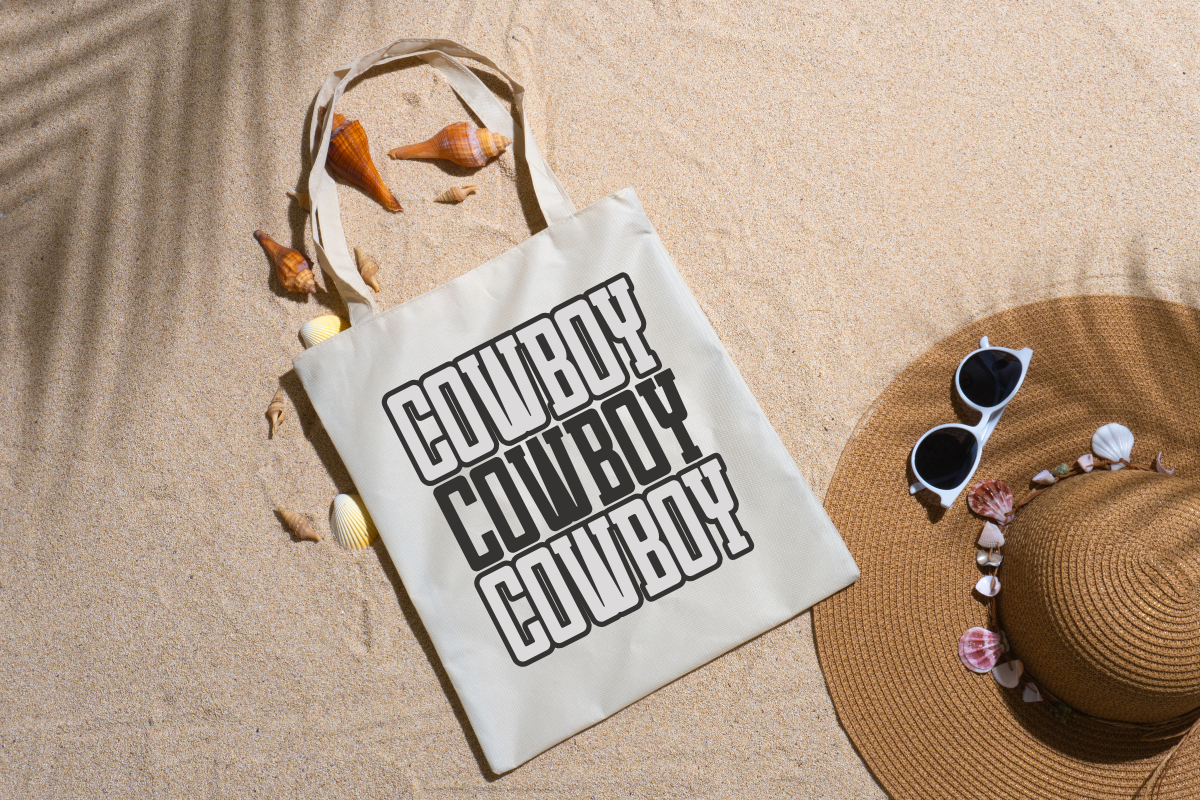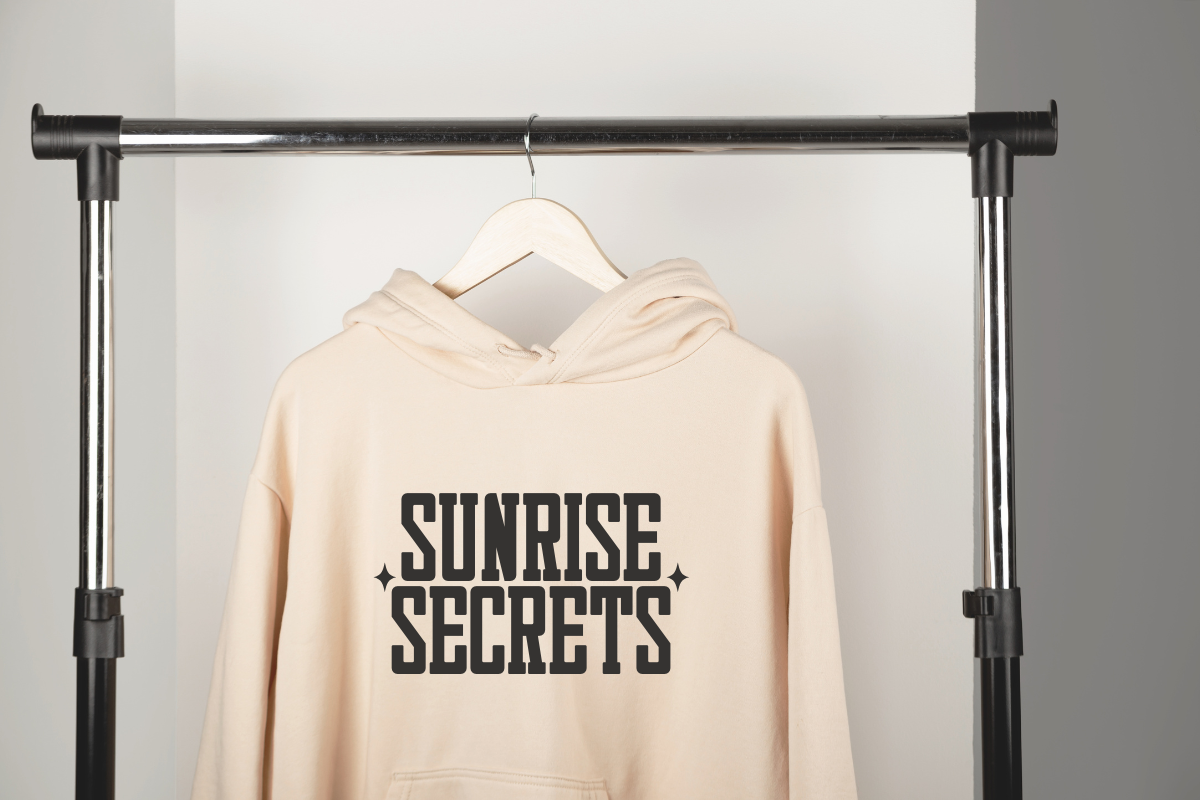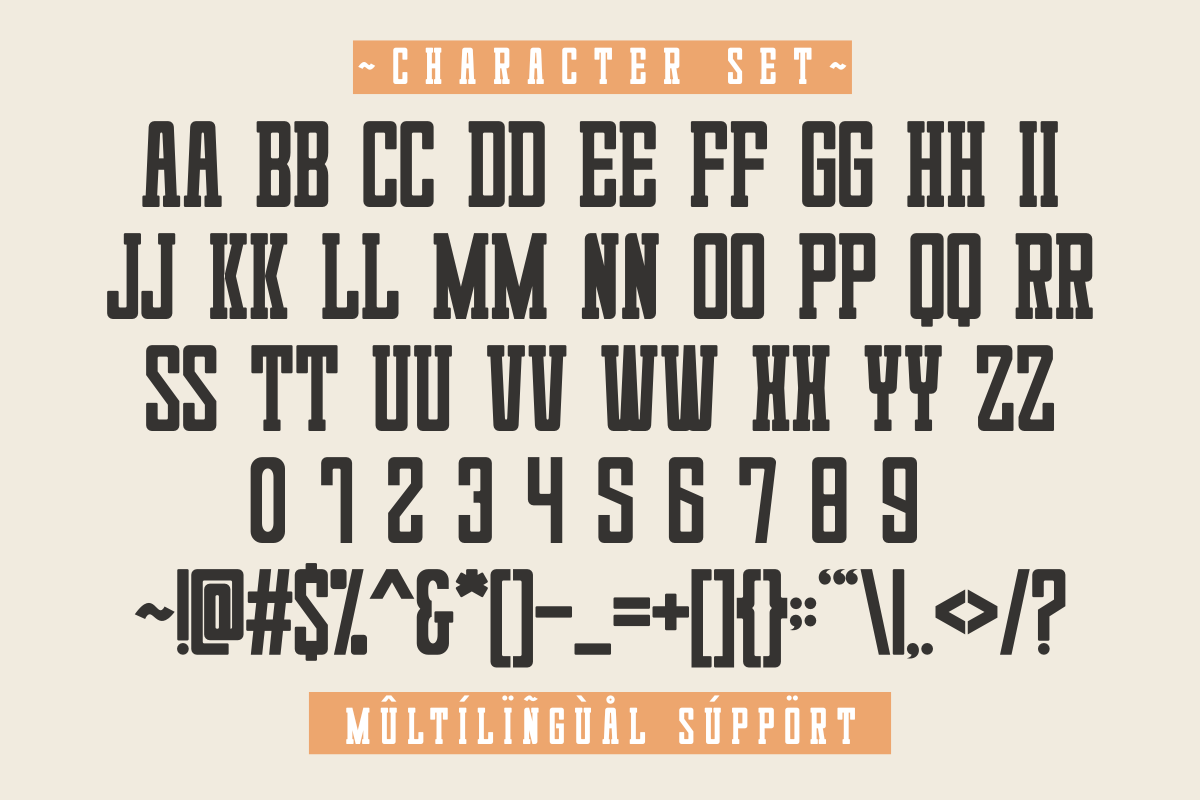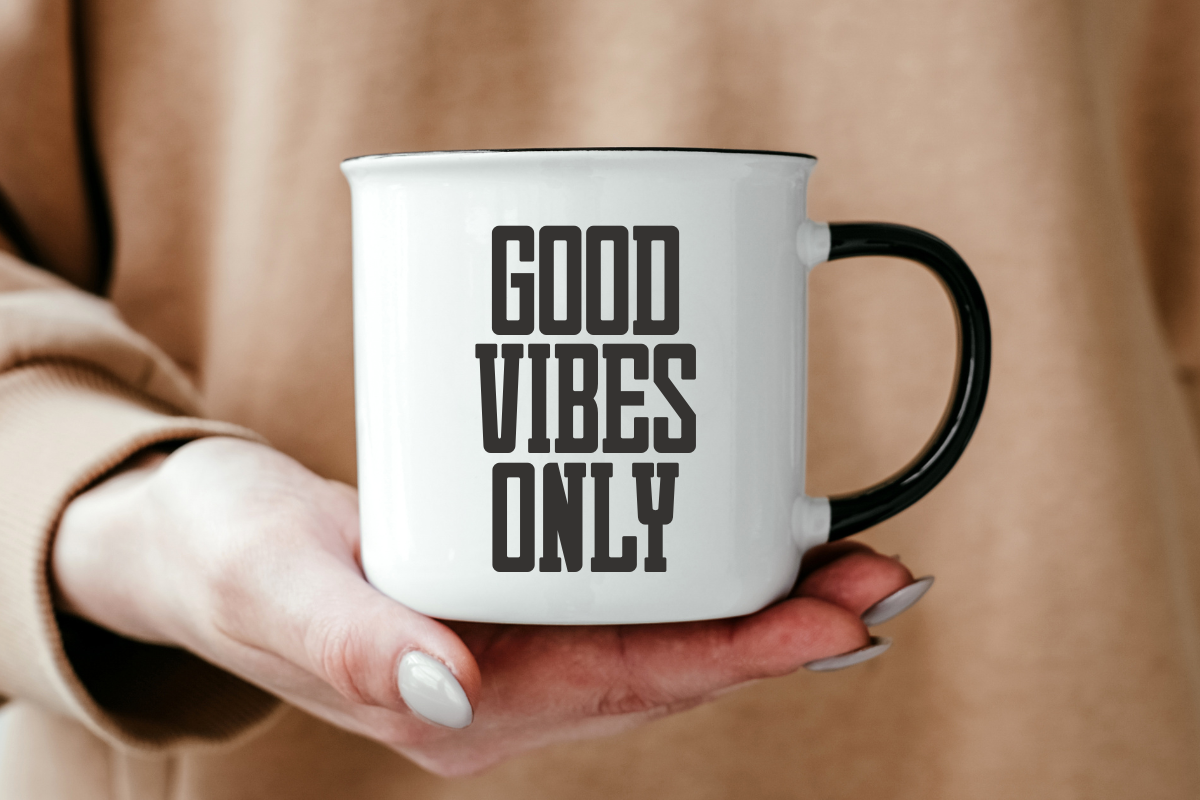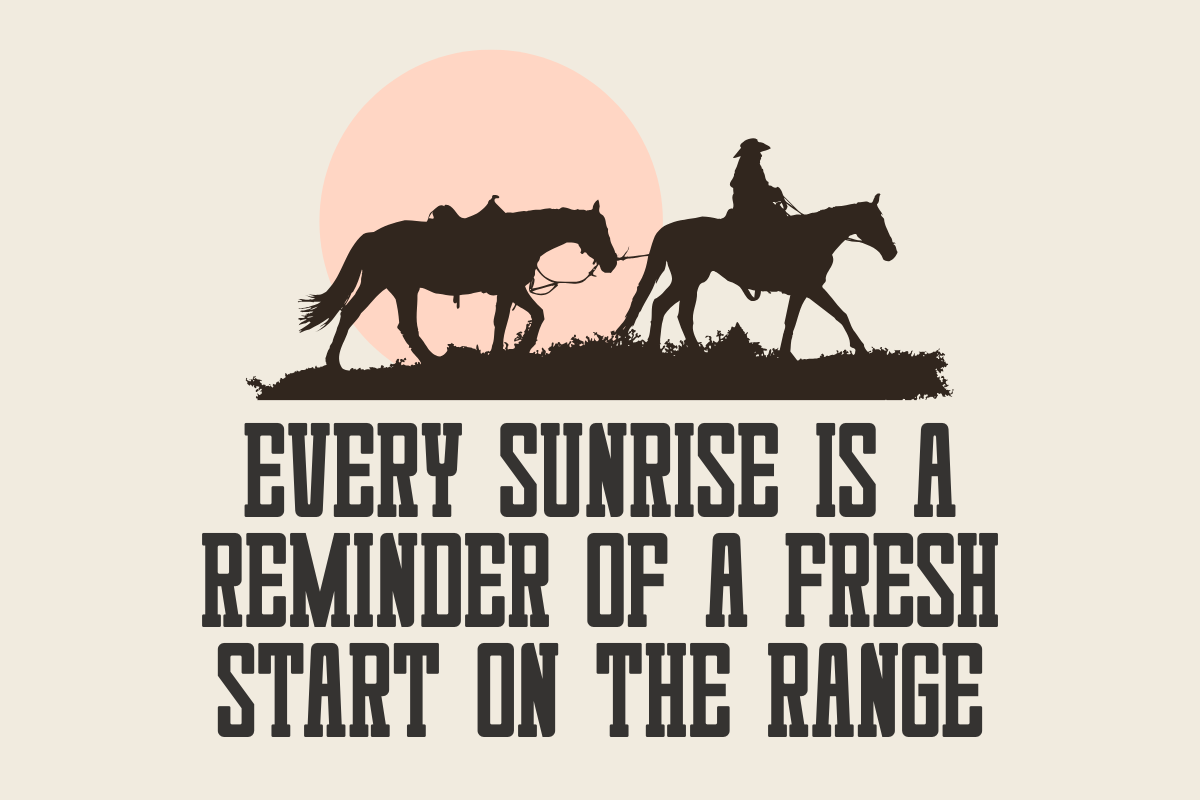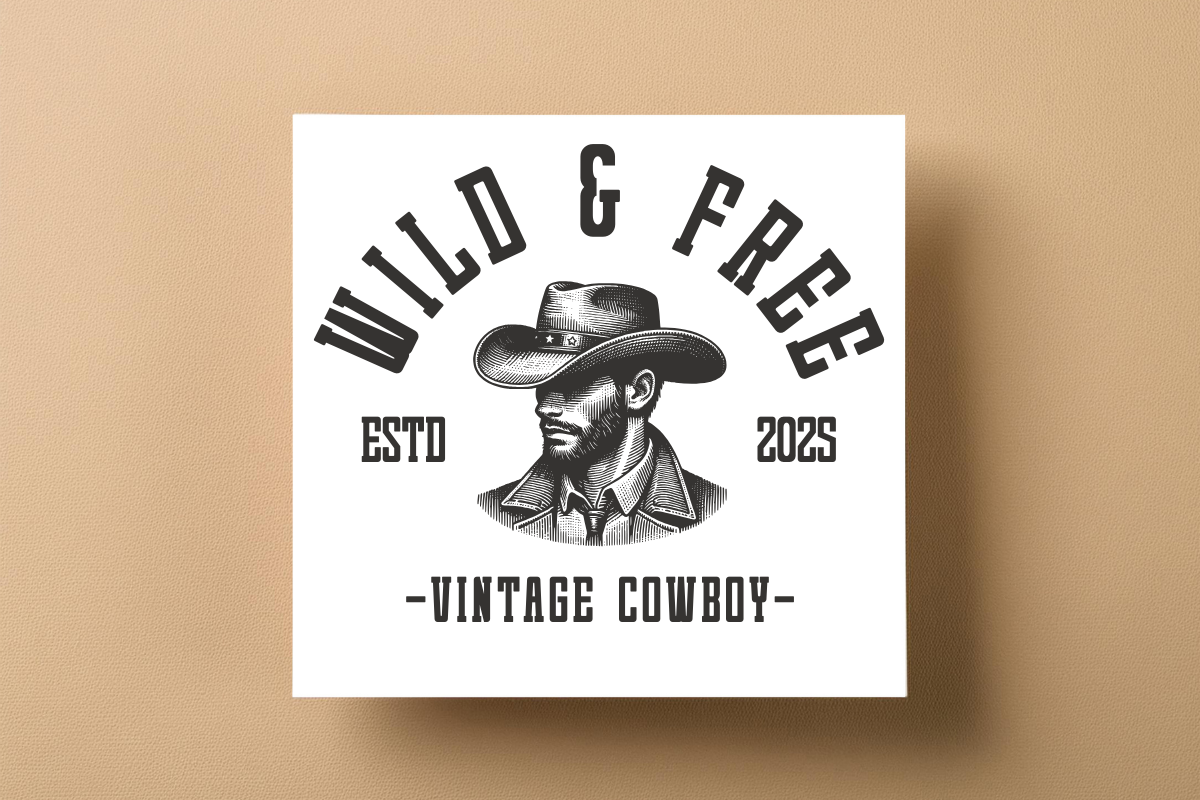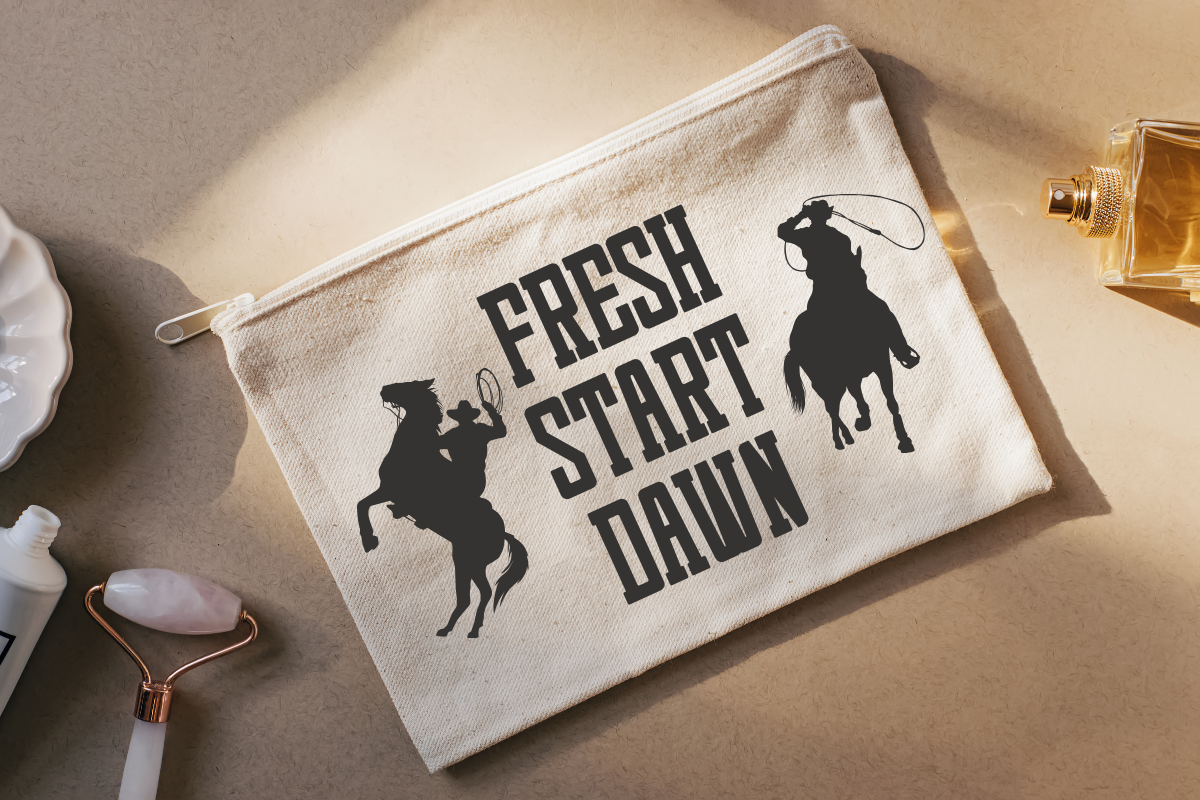
Sunrise Cowboy - Modern Slab Serif
Sunrise Cowboy is a modern slab serif font that perfect for T-shirt designs, POD, DIY, and laser cuts. Featuring bold and condensed style with minimalist style, this font adds a fresh, elegant touch to your creative projects. Ideal for crafting, branding, and more.